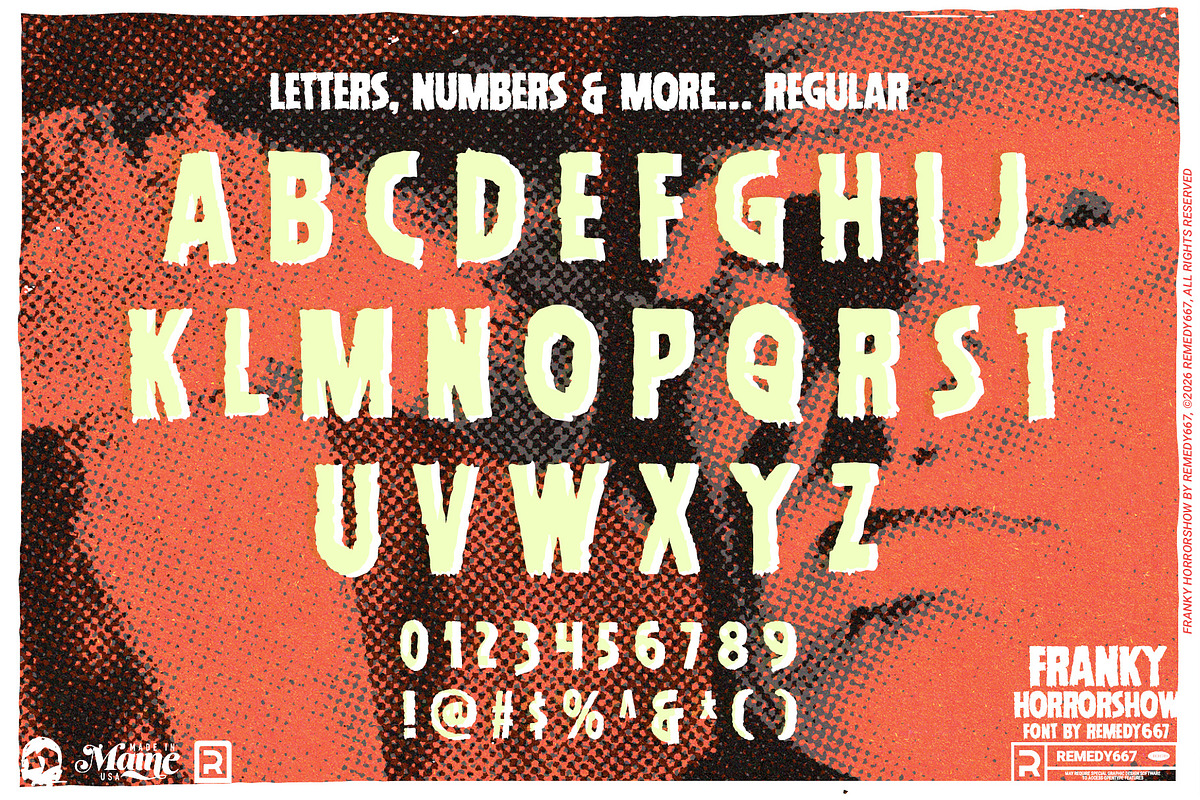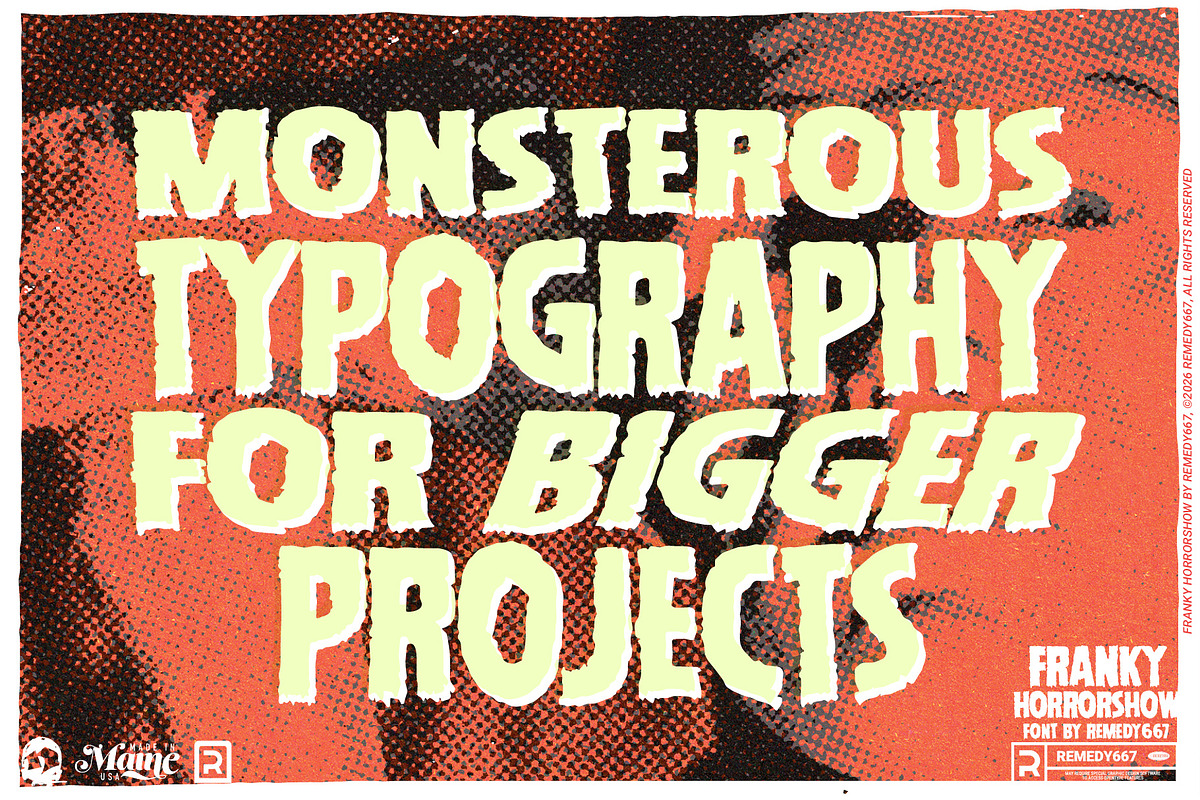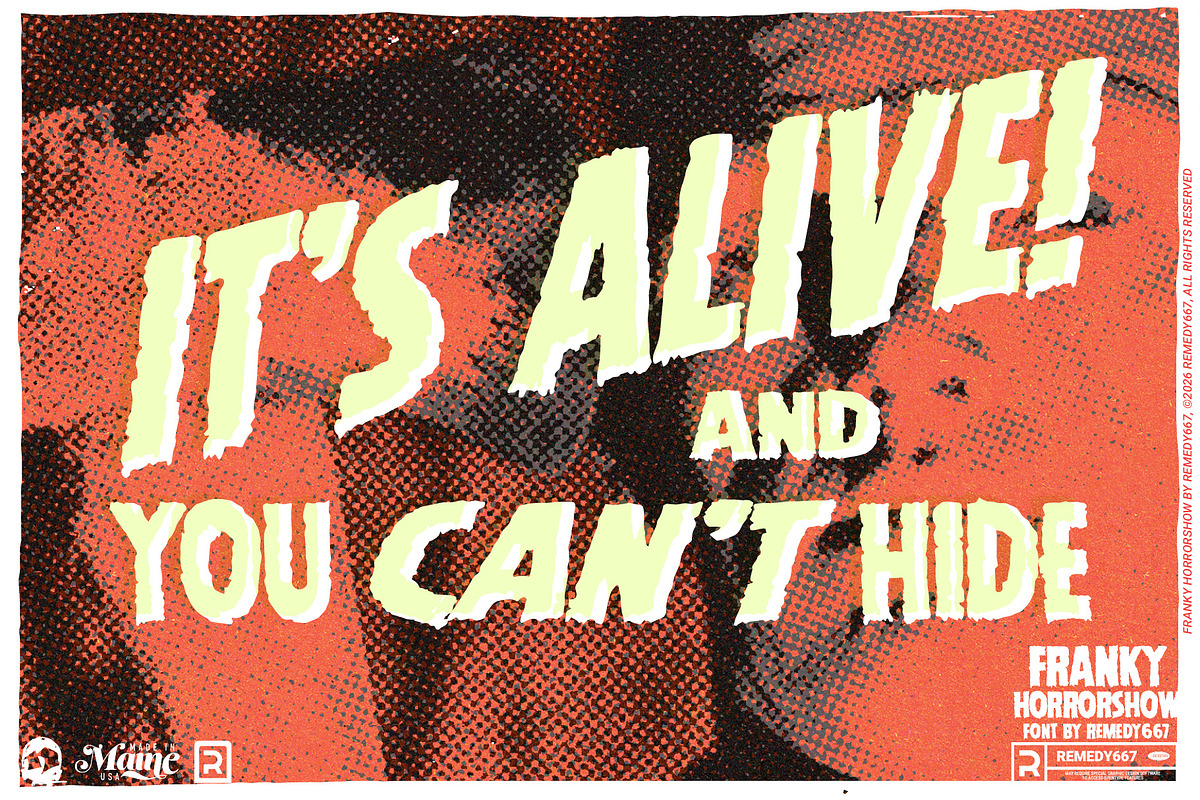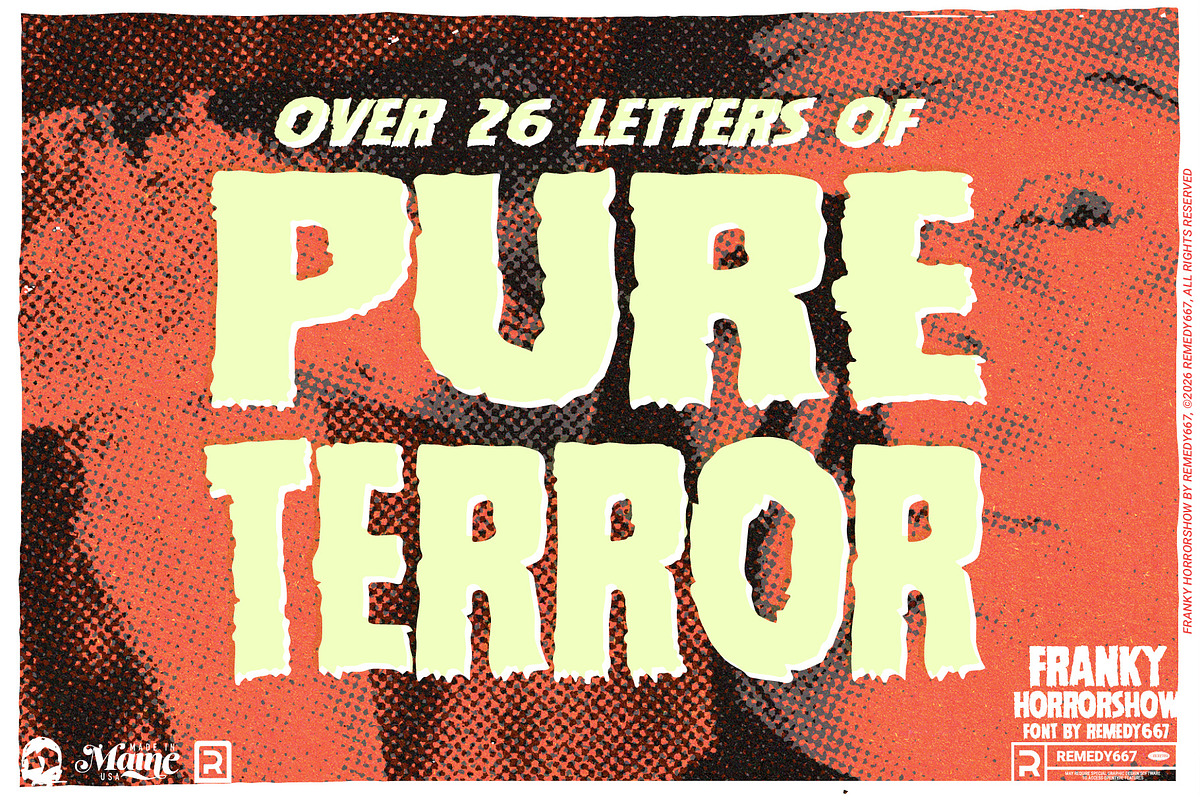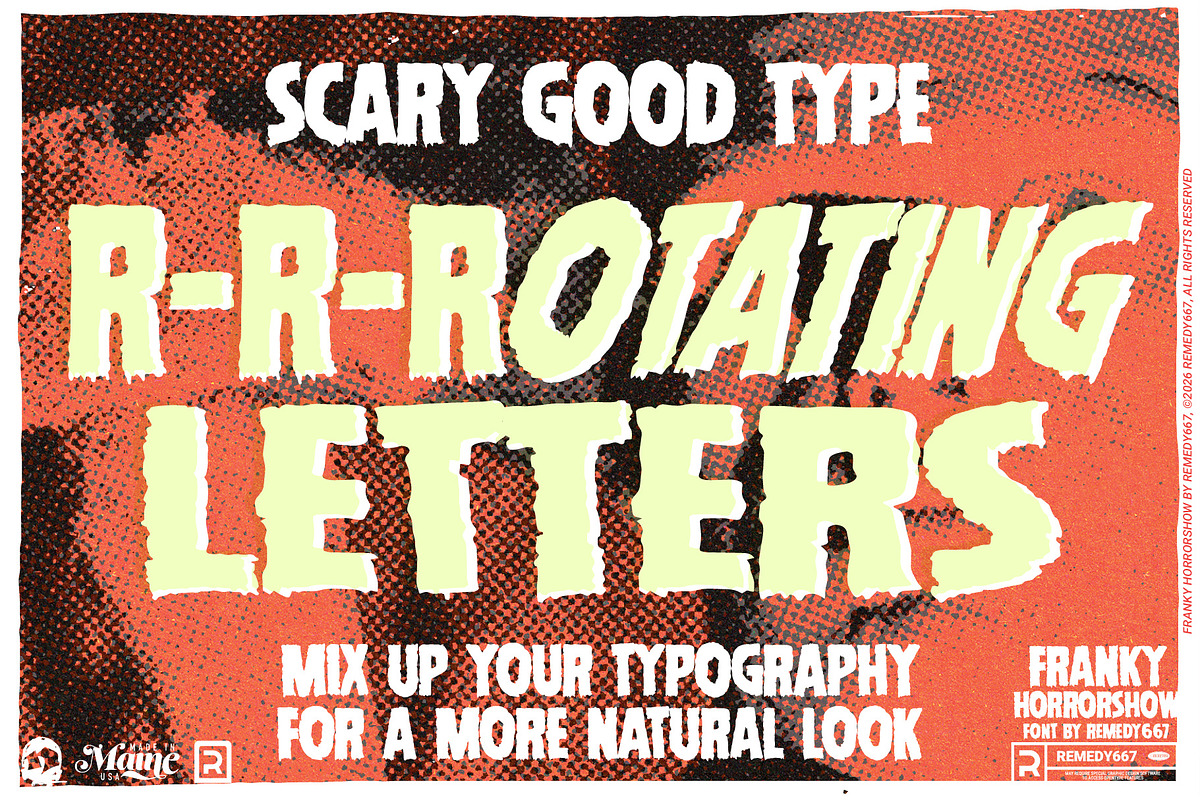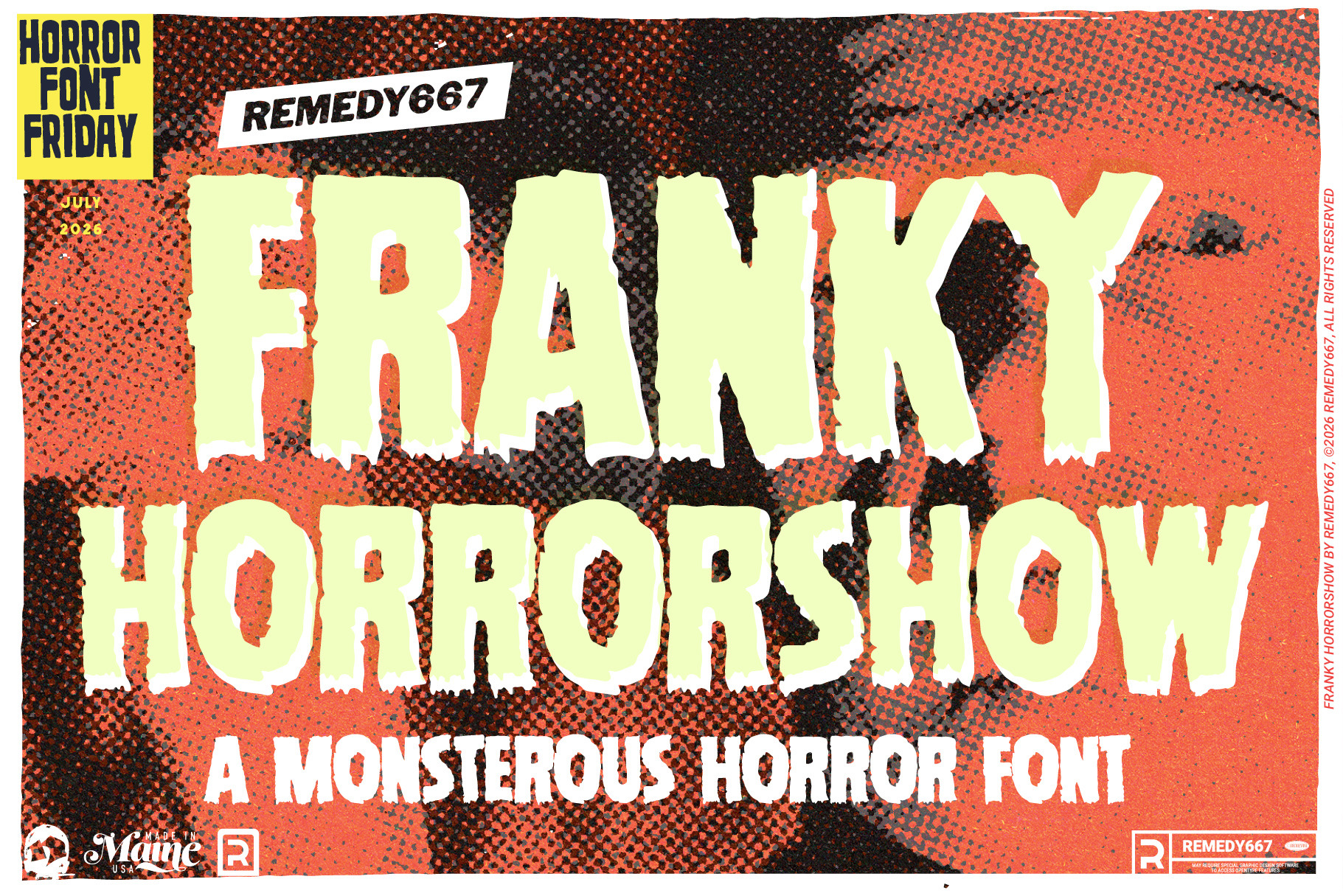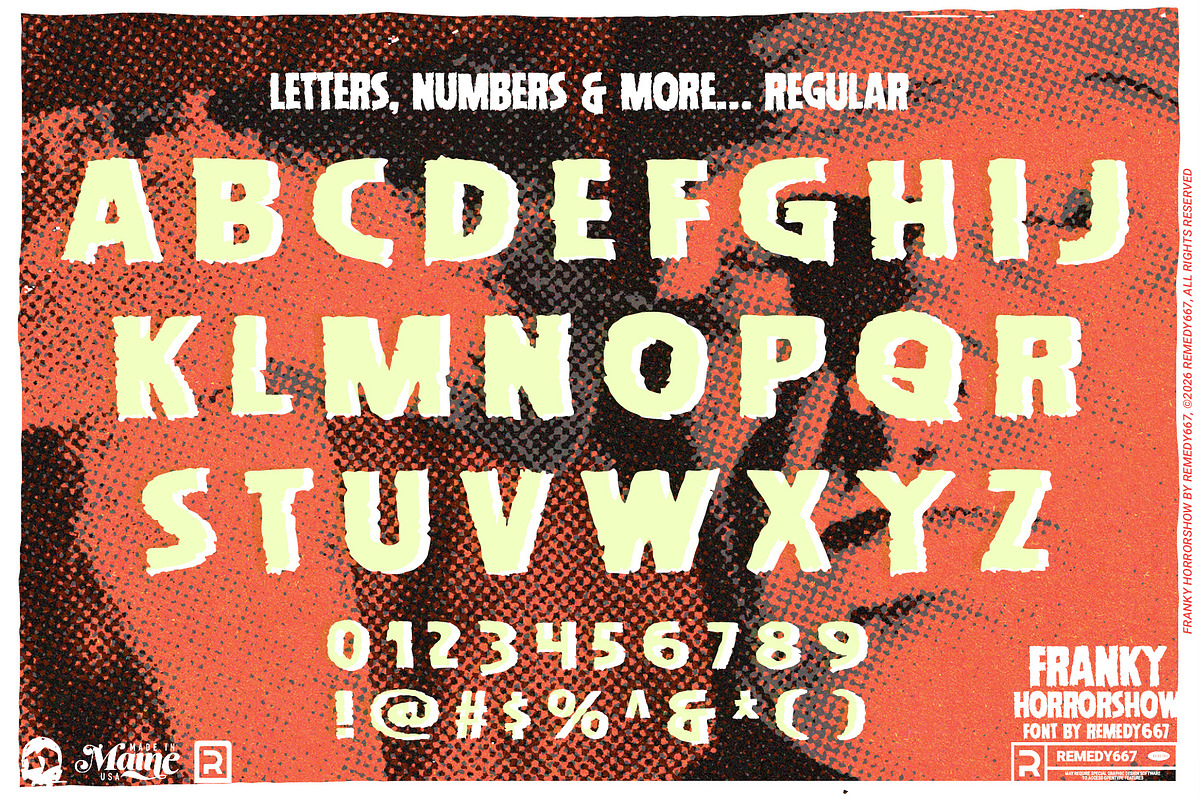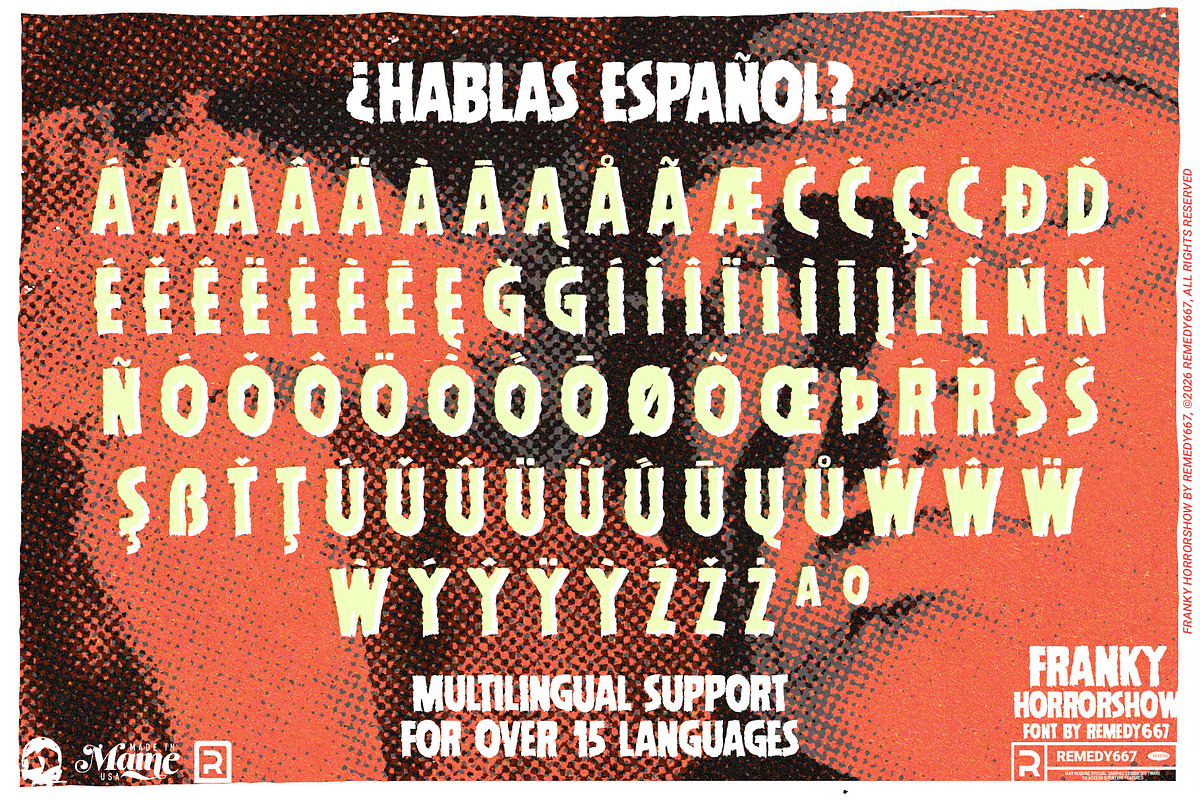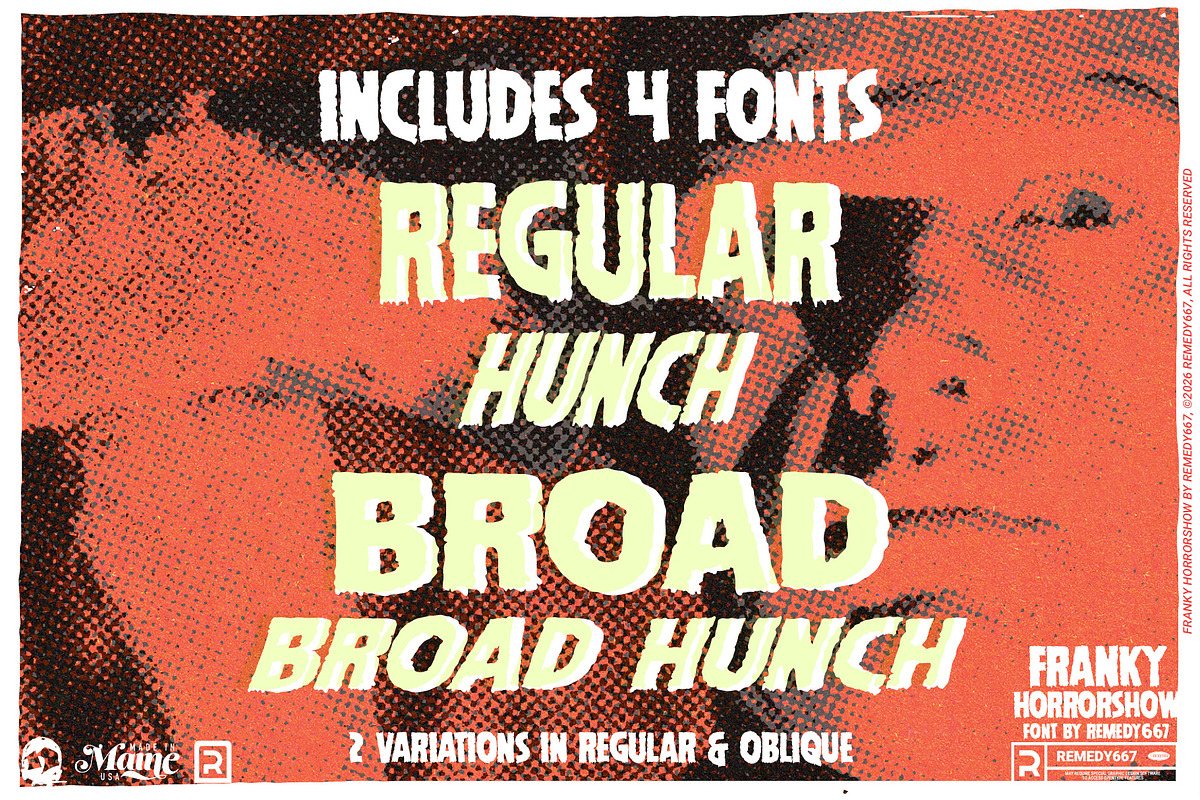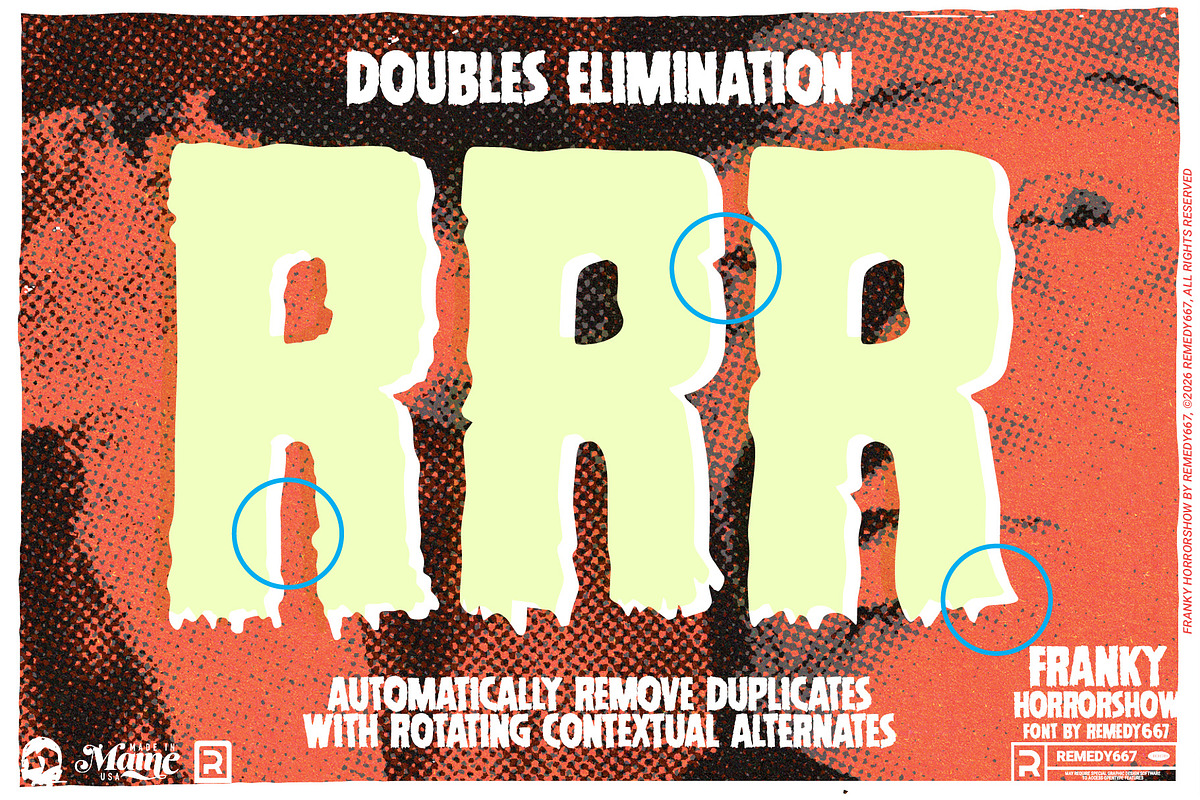
Franky Horrorshow - Monster Font
It’s alive… it’s Franky Horrorshow! A monstrously bold typeface stitched together from the unforgettable poster lettering of The Horror of Frankenstein (1970). With chunky, hand-drawn sans serif forms, Franky Horrorshow has all the energy of a mad scientist. Equal parts classic horror and untamed chaos.
Whether you’re assembling monster movie posters, merchandise, Halloween graphics, or bold subheadings, Franky Horrorshow supplies a spooky personality with vintage horror appeal. Rotating characters keep each word looking naturally hand-crafted, Franky Horrorshow includes 4 fonts that thrill. Get it, before it gets you.
Inspired by classic monster movie lettering
Bold hand-drawn sans serif style for impactful titles and subheadings
Rotating characters for natural, varied typography
Multilingual support for worldwide monster creations
Includes 4 fonts for more variety